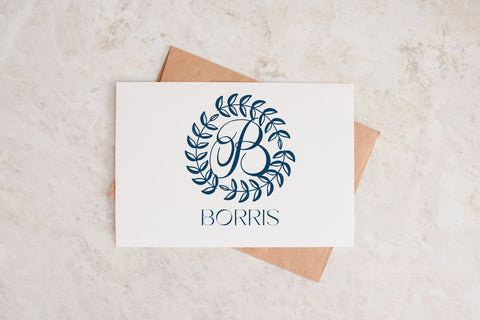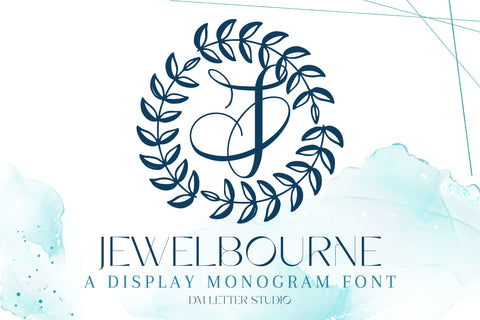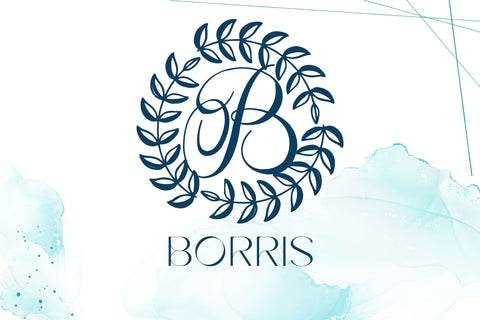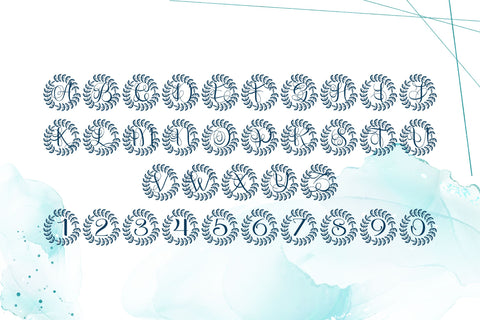
Jewelbourne Monogram Font
Meet Jewelbourne, the Monogram Font
Jewelbourne Monogram Font turns simple initials into radiant, boutique-ready emblems. Strokes feel smooth and confident, while generous counters keep tiny tags readable. Use it for wedding suites, boutique logos, keepsake gifts, foil seals, and premium packaging. In addition, Jewelbourne pairs beautifully with refined serifs and quiet humanist sans fonts, so layouts look elegant without extra work.
Where this monogram font shines
Set single, double, or triple initials for logos, seals, menus, and place cards. Then frame them with laurel rings, oval borders, faceted shapes, or fine rules to echo the gem-like geometry. Since proportions favor symmetry and clarity, centered compositions come together in minutes. As a result, your thumbnails pop on marketplaces and listings stay consistent from invitations to signage. Jewelbourne also scales smoothly from jewelry cards to entry displays, which makes it ideal for event décor and retail packaging.
Design tips for Jewelbourne Monogram
Keep initials large and let white space breathe. Pair the headline monogram with a soft serif for body text or a clean sans for labels and dates. Add micro shadows, a fine inner stroke, or a delicate frame to create depth. Because the forms are airy and balanced, textured papers and metallic foils raise perceived value. However, keep copy short so the monogram remains the hero—especially on favors, tags, and wax seals.
Select stylistic alternates for key letters
Curves tuned for foil, letterpress, engraving, laser cutting, and clean vinyl paths
Why creators choose this monogram font
You want elegance that reads at a glance and sells across many product types. Jewelbourne Monogram Font delivers steady clarity, quick layout, and a cohesive brand voice from invites to packaging and gifts.